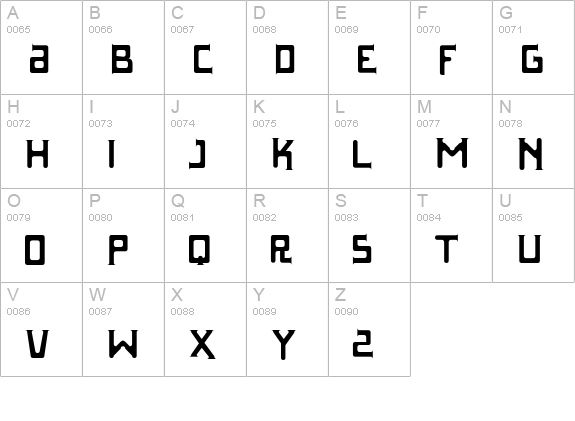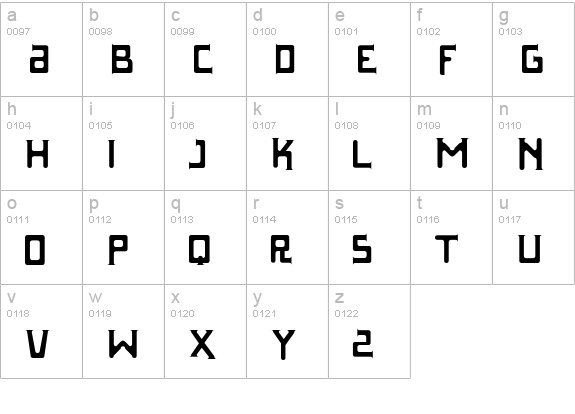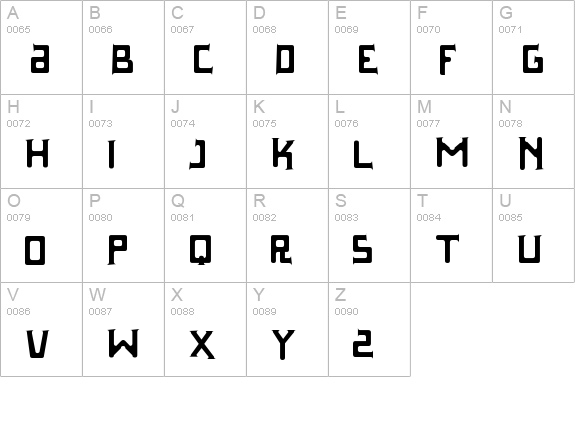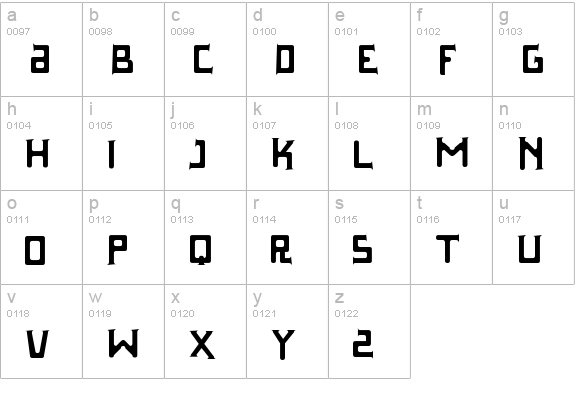
Parasight font is an innovative and captivating typeface that combines modern design with a touch of elegance. Its unique and stylish letterforms make it perfect for adding a contemporary flair to any project. With its sleek and clean lines, Parasight font is versatile and can be used for a wide range of design applications, including logos, headlines, posters, and more. Its legibility and readability ensure that your message will be communicated effectively, while its distinct personality adds a touch of sophistication. One of the great advantages of Parasight font is that it is free to download at FontsMarket.com. This means that you can easily access this remarkable font without any cost. Whether you are a professional designer or a creative enthusiast, Parasight font allows you to add a professional and stylish touch to your work without breaking the bank. The extensive character set of Parasight font includes uppercase and lowercase letters, numerals, punctuation marks, and special characters, giving you the freedom to express your creativity and create stunning designs. Its smooth curves and balanced proportions make it a pleasure to work with, ensuring that your designs will always look polished and refined. Parasight font is the perfect choice for those who are looking for a contemporary and eye-catching typeface that stands out from the crowd. Its versatility, elegance, and professional look make it suitable for a variety of projects, from branding to editorial design. So why wait? Download Parasight font for free at FontsMarket.com and bring your design ideas to life with this exceptional and visually appealing typeface.